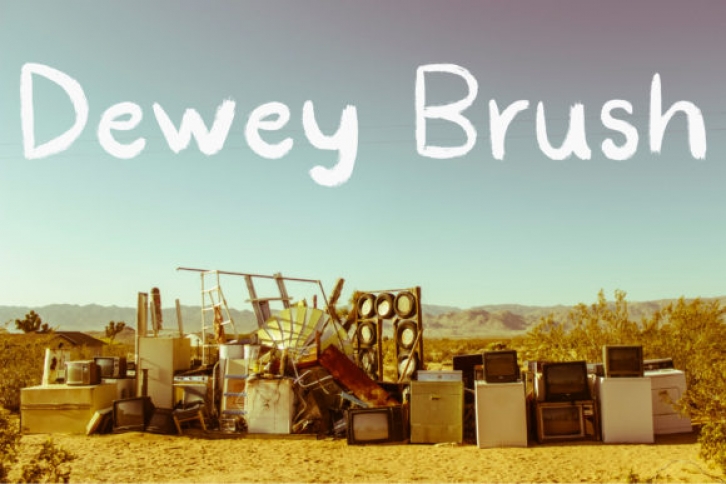
Dewey Brush is a handwritten font. With it’s charming style, it will elevate a wide range of design projects to the highest level, be it branding, headings, wedding designs, invitations, signatures, logos, labels, and much more!